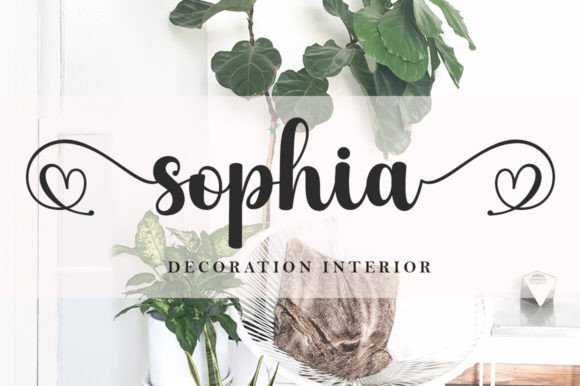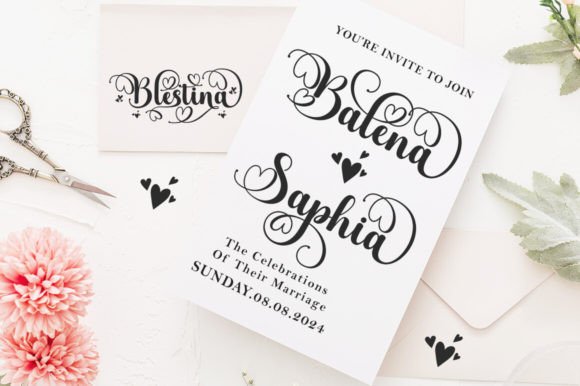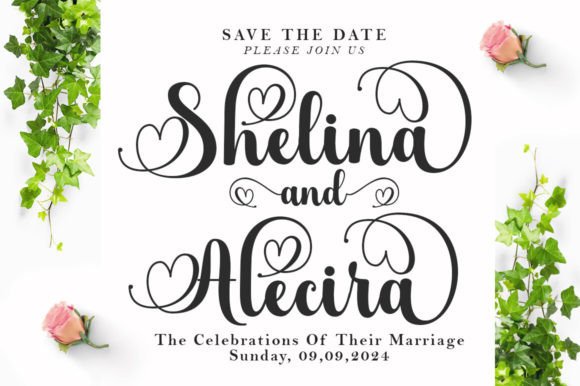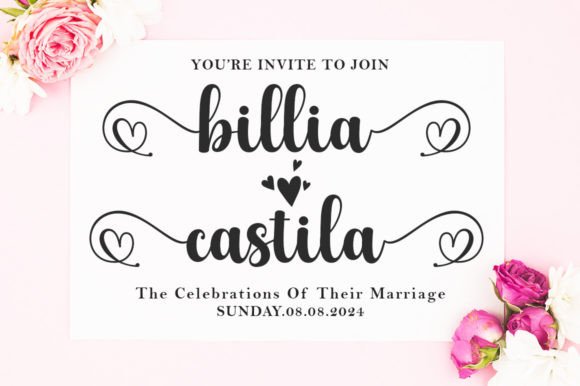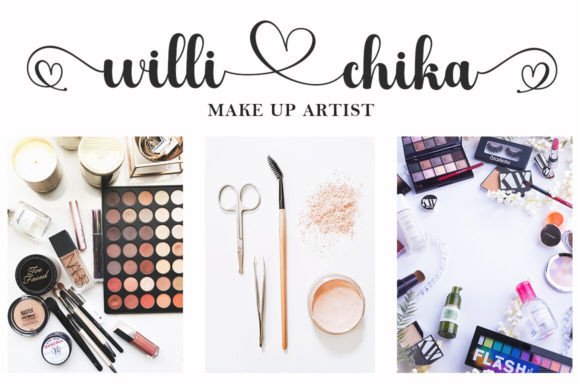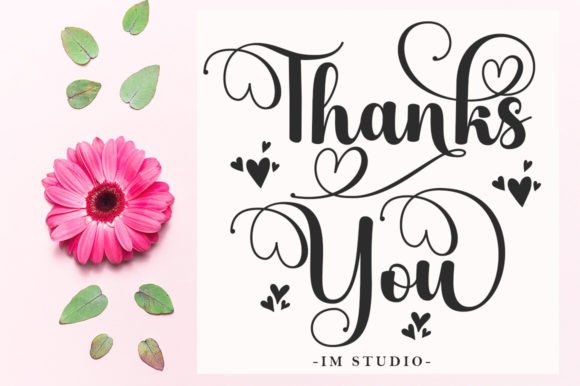
Introducing Blestina Font: A Charming Handwritten Script to Elevate Your Designs
In the world of typography, a font can make all the difference in the aesthetic and emotional appeal of a design project. For designers, crafters, and anyone looking to add a personal touch to their creations, the Blestina Font is a gem worth discovering. This charming handwritten font is not only versatile but also packed with features that make it easy to use and customize. Let’s dive into what makes Blestina a must-have in your font collection.
A Versatile Script Font for Every Project
Blestina is a beautifully crafted script font that boasts a wide range of applications. Whether you’re working on a greeting card, crafting a unique invitation, designing a logo, or simply looking to add some personality to your headlines, Blestina is up to the task. Its elegant and flowing script lines bring a touch of sophistication and romance to any project, making it perfect for both personal and professional use.
The Romantic Feel of Blestina
One of the standout features of the Blestina Font is its ability to add a romantic feel to your designs. In an era where digital communication often feels impersonal, adding a touch of handwriting can make your messages stand out. Blestina’s charming and whimsical strokes evoke a sense of nostalgia and warmth, making it ideal for projects where you want to convey emotion or create a lasting impression.
PUA Coded for Easy Access to Glyphs and Ligatures
Understanding the needs of designers and crafters, Blestina Font comes with a significant advantage – it is PUA (Private Use Area) coded. This technical feature means that all the glyphs and ligatures are easily accessible, allowing for a seamless design experience. With PUA coding, you can unlock the full potential of the Blestina Font, experimenting with its various swashes, alternates, and ligatures to create truly unique pieces.
Practical Applications of Blestina Font
The versatility of Blestina Font makes it suitable for a myriad of projects. Here are a few ideas to get you started:
• Greeting Cards and Invitations: Add a personal touch to birthdays, weddings, and holiday cards with Blestina’s elegant script.
• Branding and Logos: Stand out with a custom logo that exudes elegance and professionalism.
• Social Media Graphics: Elevate your posts and stories with stylish headlines and quotes.
• Stationery and Planners: Create beautiful, functional pieces that inspire organization and creativity.
Why Choose Blestina Font?
With so many fonts available, why choose Blestina? The answer lies in its unique blend of charm, versatility, and usability. Blestina is not just a font; it’s a design tool that can transform your projects with its romantic and whimsical feel. Additionally, its PUA coding ensures that you have the flexibility to customize your designs without needing extensive technical knowledge.
Blestina Font is a charming and versatile handwritten script that can add a touch of romance and elegance to any design project. Its ease of use, courtesy of PUA coding, makes it accessible to designers and crafters of all levels. Whether you’re looking to create something personal or professional, Blestina is a valuable resource that can help you achieve your creative goals. So, why settle for ordinary when you can make your designs extraordinary with Blestina Font?